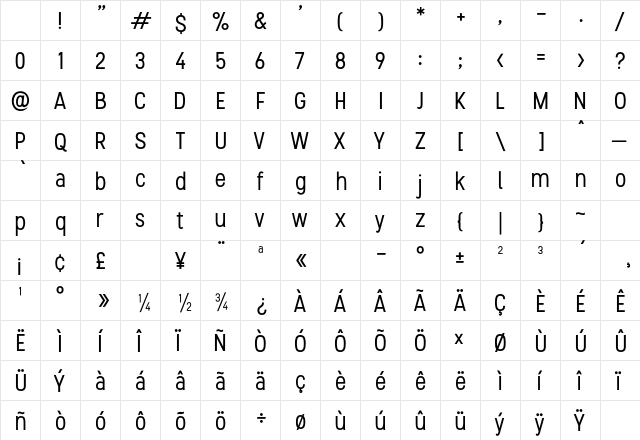
Complete Stellar Regular glyph index. Displaying only characters natively supported by Stellar Regular font.
Stellar is a composed and adaptable typeface that performs quietly and consistently across a wide range of design contexts.